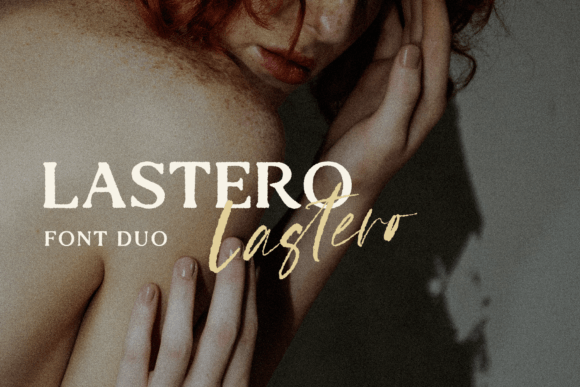
Introducing the Lastero Font Duo - Your Path to Crafting Enchanting Designs
Embark on a journey of creativity with the Lastero Font Duo, a captivating script font family that exudes elegance and charm. Inspired by the art of handwritten signatures, this font duo will captivate your audience with its alluring curves, delicate strokes, and charming ligatures.
Unleash Your Creative Vision
With Lastero, the possibilities are endless. Craft logos that exude sophistication, design branding that captivates, and create t-shirts that make a statement. Adorn book covers with a touch of artistry, elevate stationery with a personal touch, and bring your marketing materials to life with a dash of flair.
Express Yourself with Limitless Versatility
From blogs and magazines to cosmetics and signage, the Lastero Font Duo dances across a myriad of applications with effortless grace. Its versatility knows no bounds, making it the perfect companion for your creative pursuits.
Experience the Joy of Effortless Use
Embrace the Beauty of Handcrafted Elegance
Each letter in the Lastero Font Duo has been meticulously crafted to emulate the artistry of handwriting. Its light and elegant strokes add a touch of refinement to your designs, while the signature style of the font infuses your creations with a unique charm.